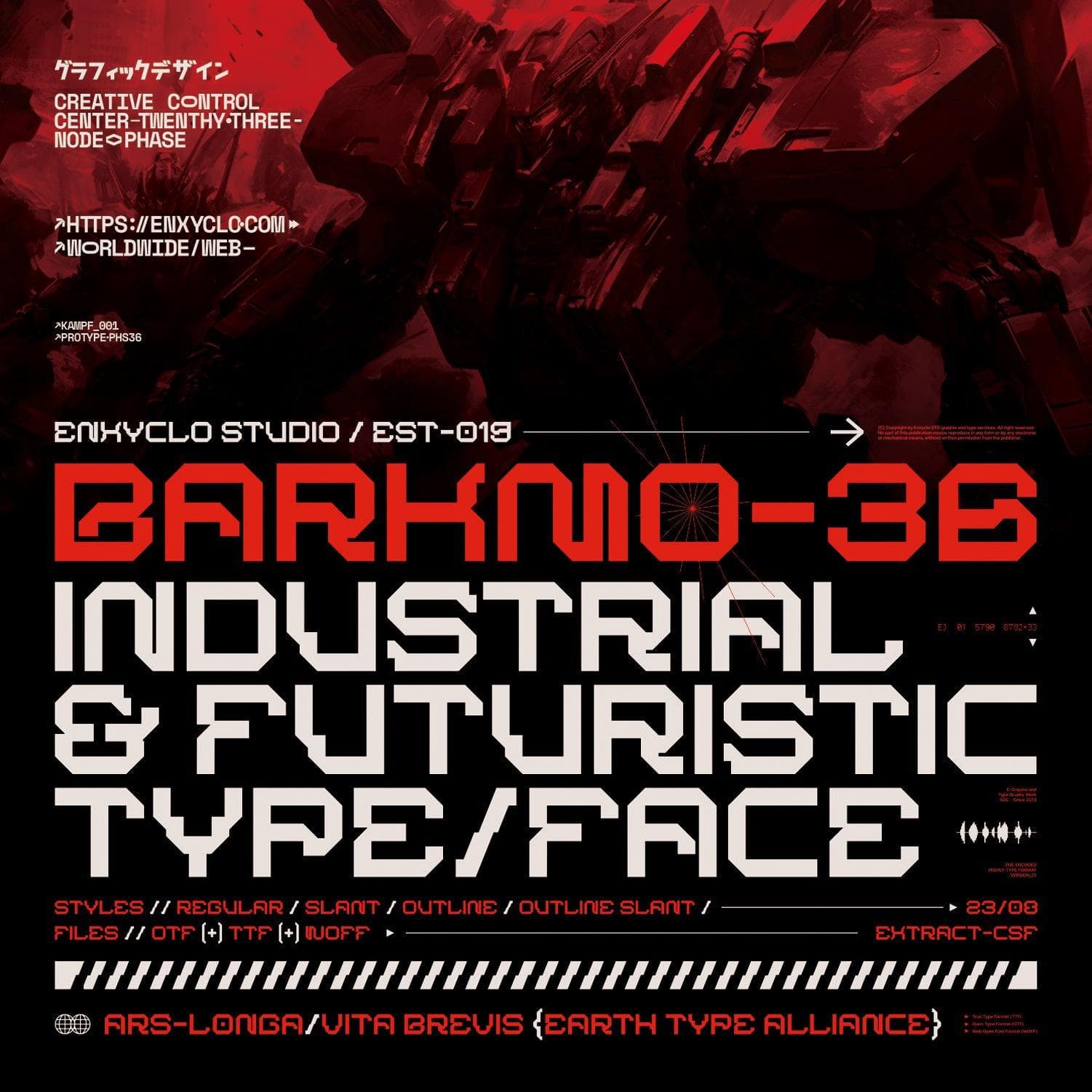
<p><strong>BARKMO36 </strong>is not your ordinary font; it’s a cyberpunk futuristic techno mecha font with 4 styles (<strong><em>Regular, Slanted, Outline, Outline Slanted) </em></strong>that takes your creativity to the next level. Highly inspired by industrial and mecha-robotic cyberpunk vibes. Its futuristic aesthetics bring a whole new dimension to your designs, making them stand out. Whether you’re working on a website, poster, logo, or any other project, this font adds that extra touch of innovation and sophistication. Cyberpunk–a genre that started in science fiction and has left its indelible mark on various aspects of pop culture, including design. The textures of Cyberpunk are hard to ignore. Its intrinsic appeal lies in the paradoxical blend of the advanced and the old-fashioned, the bright and the brooding, the hopeful and the despairing. And one way this vibe gets communicated powerfully is through this font–the heroes of visual communication if you will.</p><ul><li><p>True Type Font (TTF)</p></li><li><p>Open Type Font (OTF)</p></li><li><p>Web Open Font Format (WOFF1 & WOFF2)</p></li><li><p>4 Styles: Regular, Slant, Outline, & Outline Slant</p></li><li><p>Contains 235 Glyphs for Each Style (Total: 940 Glyphs)</p></li><li><p>Uppercase, Numeral, Punctuation & Symbol</p></li><li><p>Multilingual support.</p></li></ul><p></p>